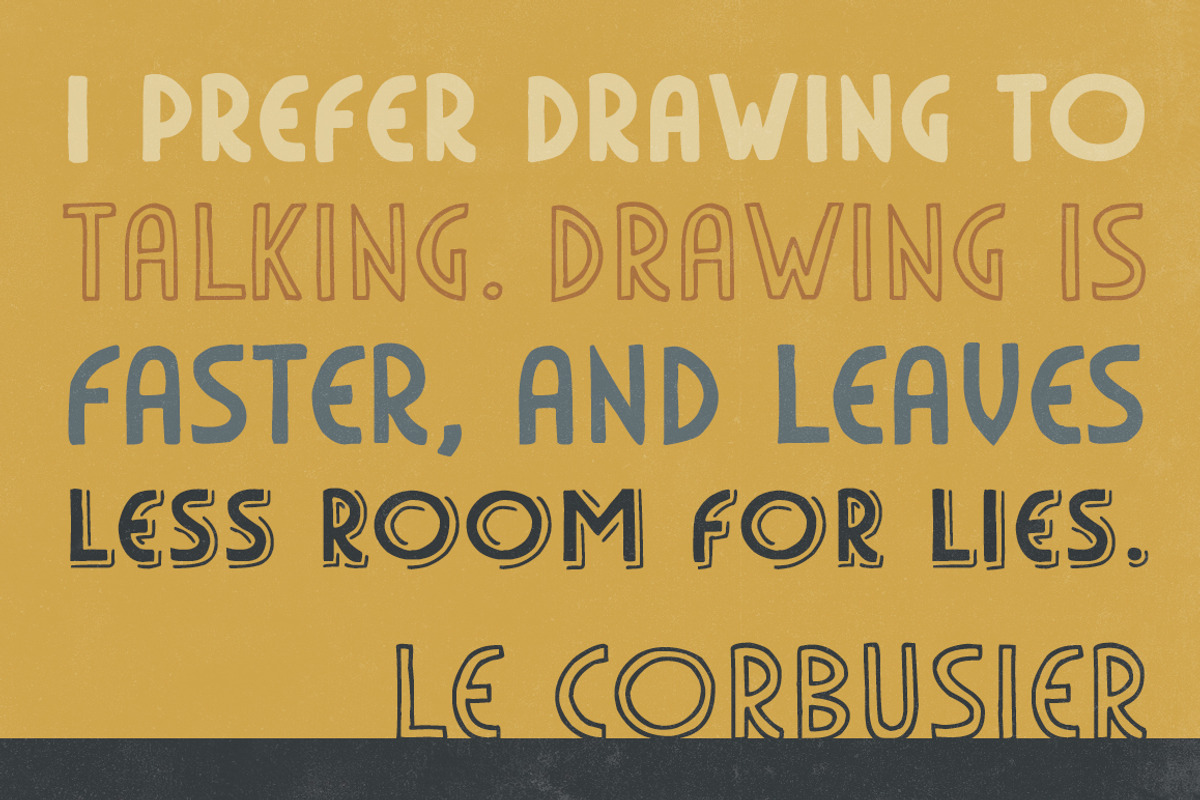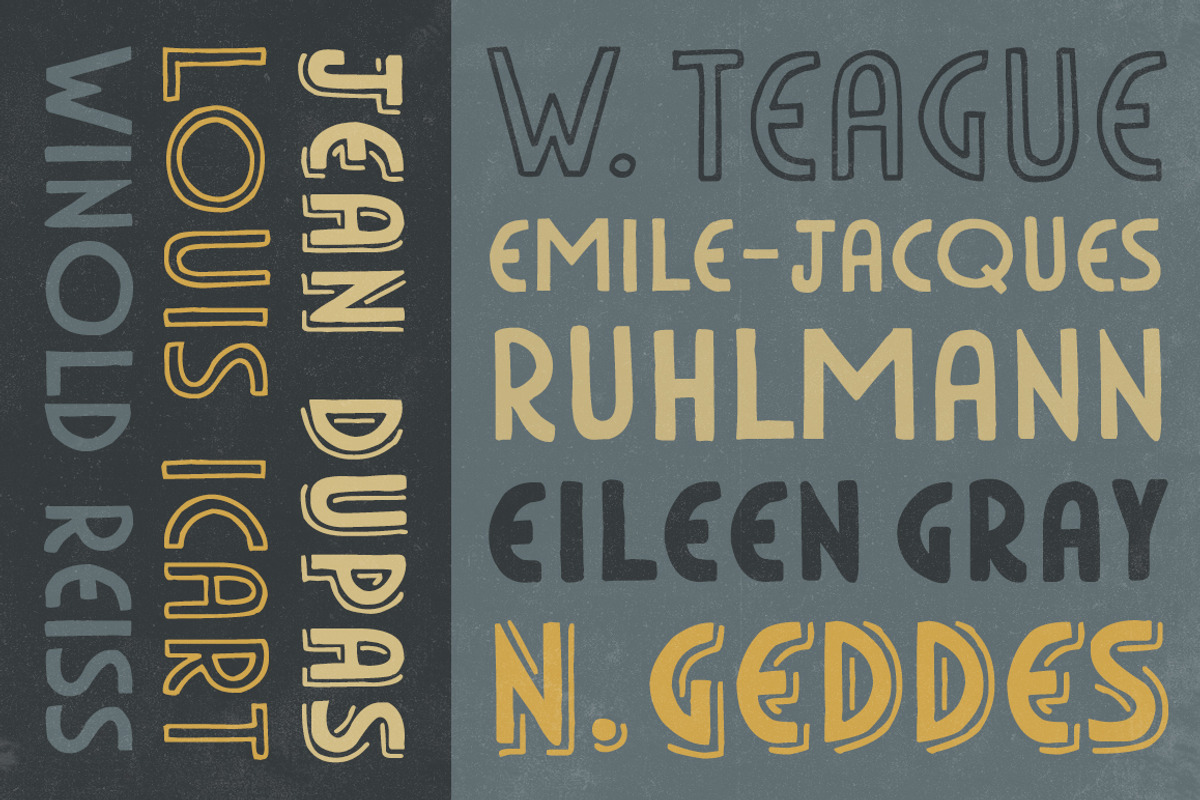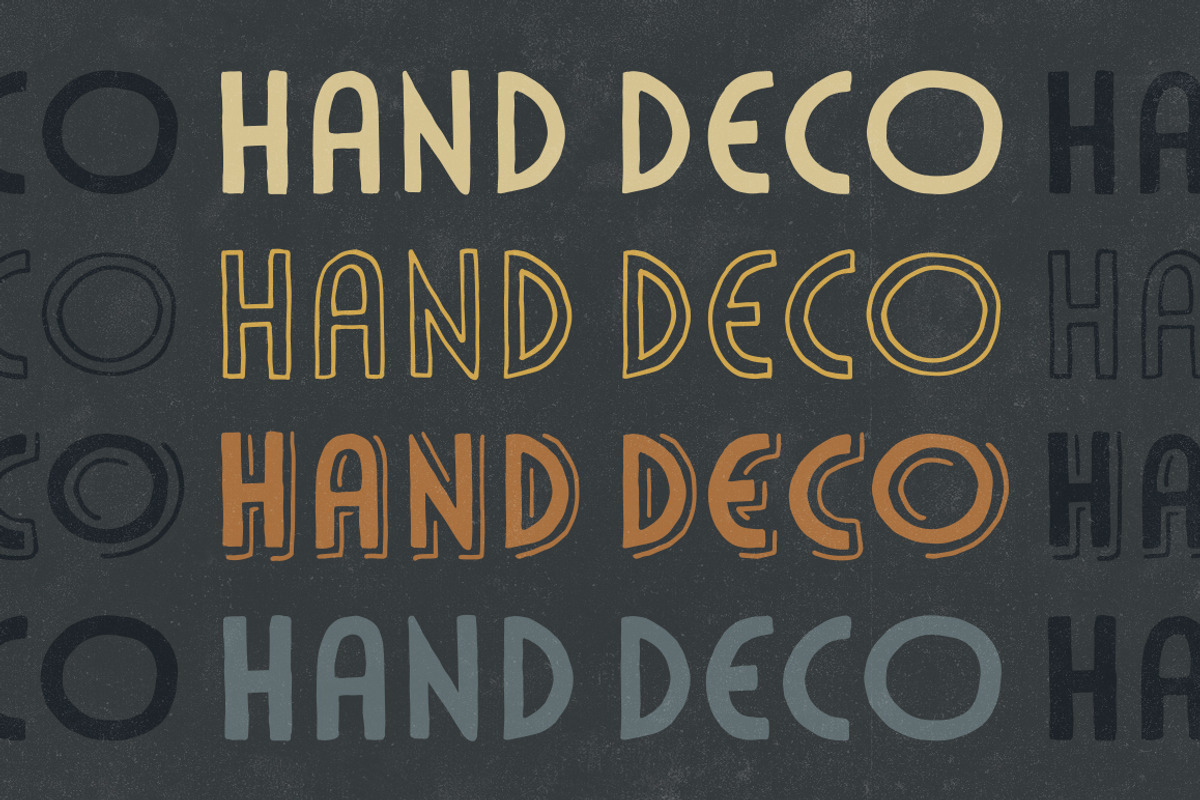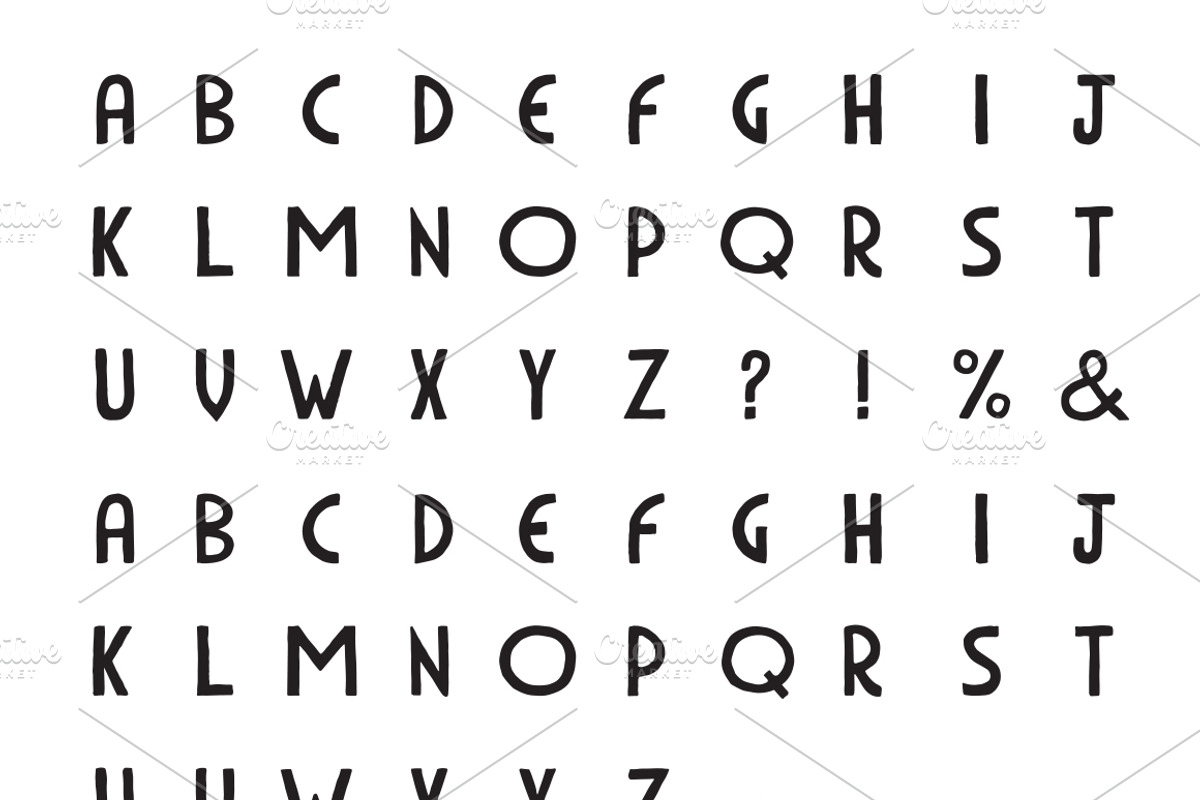
HandDeco 4-Font Family
HandDeco is a family of four sans serif display fonts inspired by geometric typefaces of the early 20th century Art Deco era. HandDeco includes four styles which are as follows: Regular, Outline, Bold, and Shadow.
HandDeco combines the spirit of historic display type with the craft of hand-drawn lettering. It makes designing headlines, logos, badges, and prints easy and stylish. Each of the four font files contains approximately 130 glyphs and comes in a standard .TTF file format.